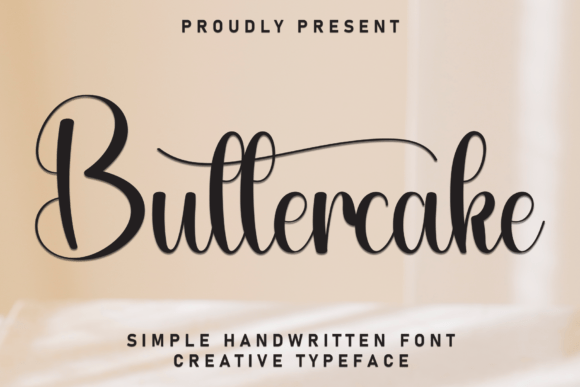
Unleash the Beauty of Buttercake Font
As you sit at your desk, surrounded by scribbled notes and scattered ideas, the blank page stares back at you, waiting for the perfect spark to ignite your creativity. It’s in these moments that the right font can be the difference between a good design and a great one. That’s where Buttercake Font comes in – a harmonious blend of beauty and balance that brings a touch of elegance to your work.
With its spirited charm and vivid character, this font is a valuable tool for designers looking to add a personal touch to their projects. Whether you’re creating heartfelt wedding invites, nostalgic greeting cards, or simply looking to inject some life into your designs, Buttercake Font is the perfect companion to help you bring your vision to life.
Buttercake Font Key Features
- Font Family: Buttercake
- Unique Characteristics: Hand-drawn, cursive, and elegant design; perfect for titles, headings, and decorative text
Designer Review: Buttercake Font
Overall, I’m a fan of the Buttercake Font. It’s a playful and charming script font that’s perfect for adding a touch of whimsy to your designs. ✨ The font’s fluid connections and rounded shapes make it feel approachable and friendly.
The Buttercake Font is great for:
- Celebratory and festive designs (e.g. birthday invitations, wedding stationery)
- Children’s products and branding (e.g. toys, educational materials)
- Food and beverage branding (e.g. bakeries, restaurants)
- ⚠️ The font may not be suitable for body text, as the irregular letterforms can make reading challenging
- ⚠️ The font is not ideal for small-scale text, as the details can get lost
Overall, the Buttercake Font is a great choice for designers who want to add a touch of personality to their designs. While it may have some limitations, its unique charm and playfulness make it a valuable addition to any design toolkit.
Buttercake Font is ideal for creating playful, whimsical designs. Use it for:
– Children’s party invitations
– Food labels and packaging
– Wedding stationery
– Any project that requires a touch of warmth and personality.